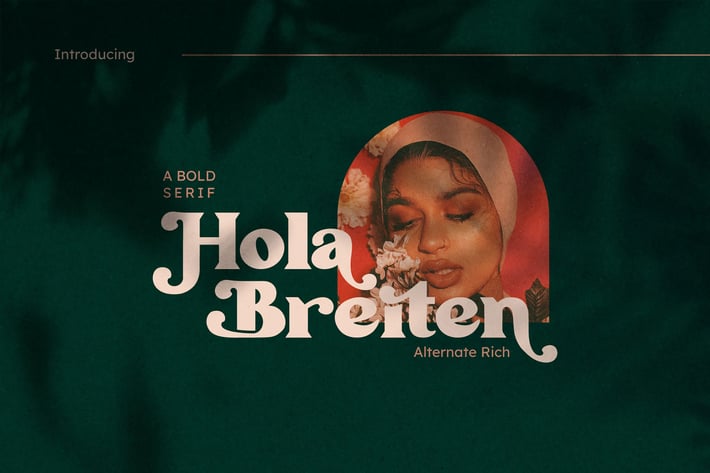
Breiten Display Font
axelartstudio
Breiten Display Font
This all caps font is suitable for posters, magazines, apparels, movie headlines, packaging and more.